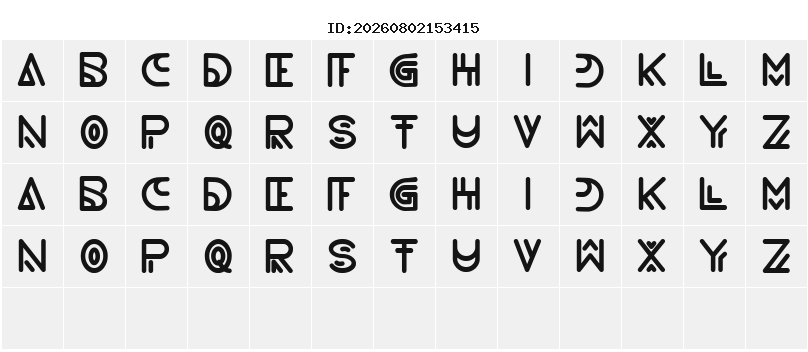
• Font Name: never ending maze
About never ending maze.ttf
never ending maze.ttf is a modern, elegant sans-serif font designed for ultimate readability and visual harmony. Perfect for branding, headlines, web design, and print materials.